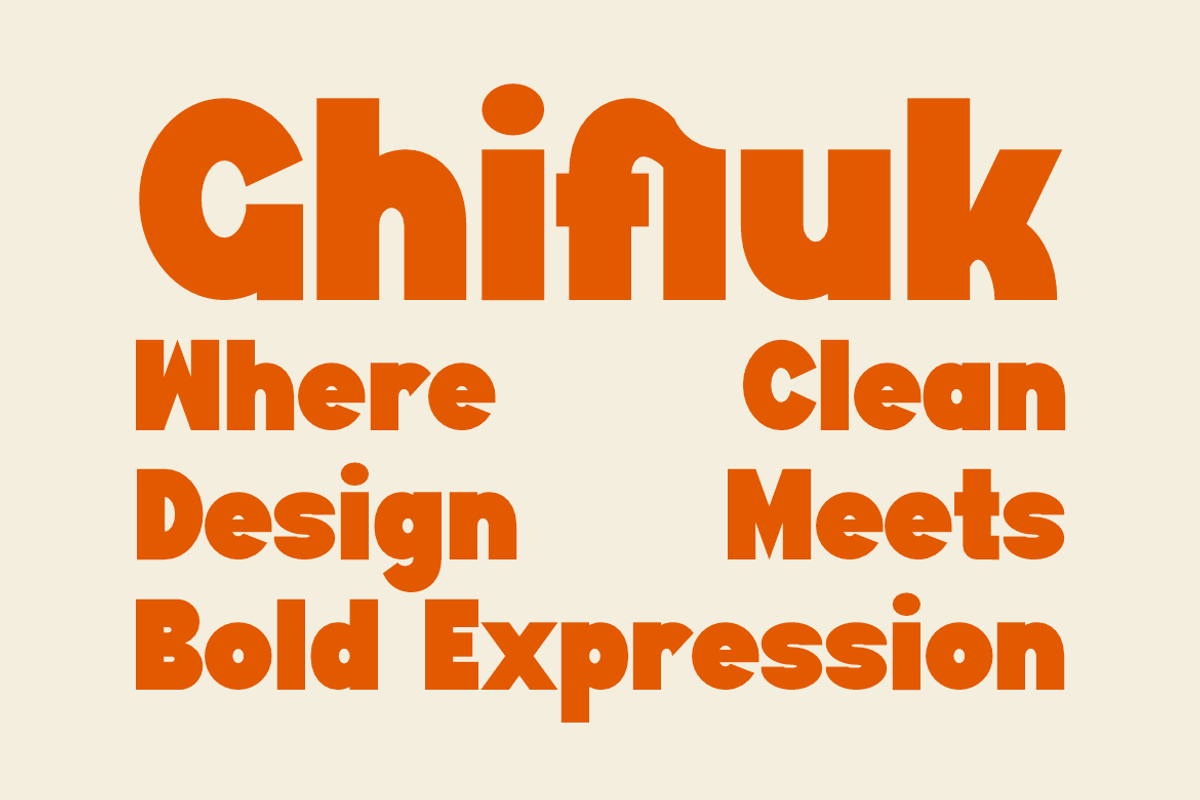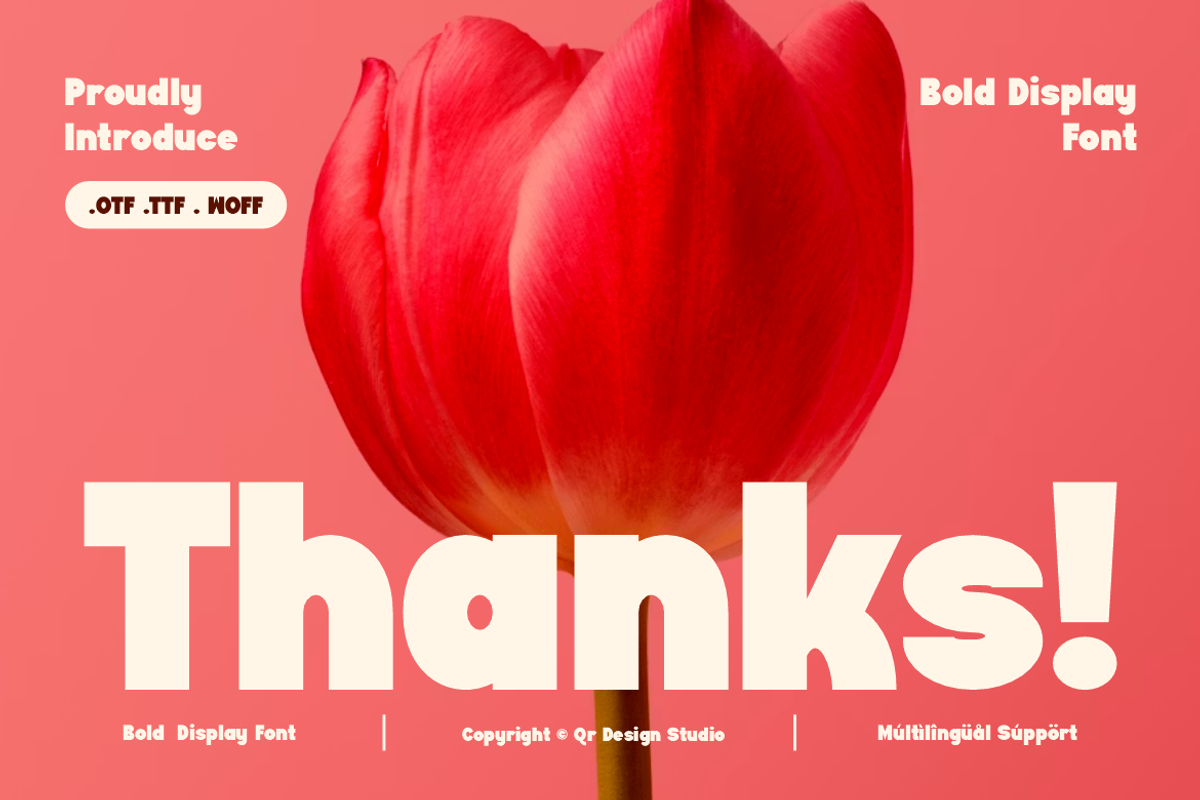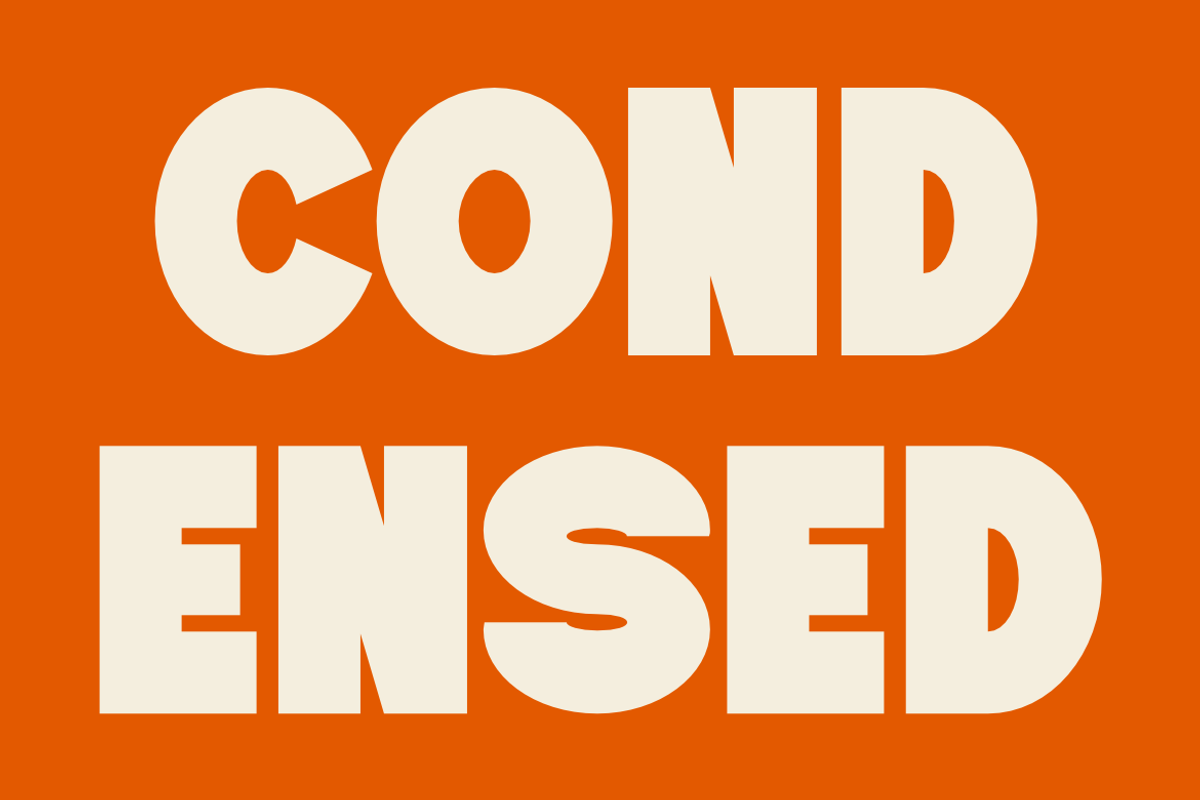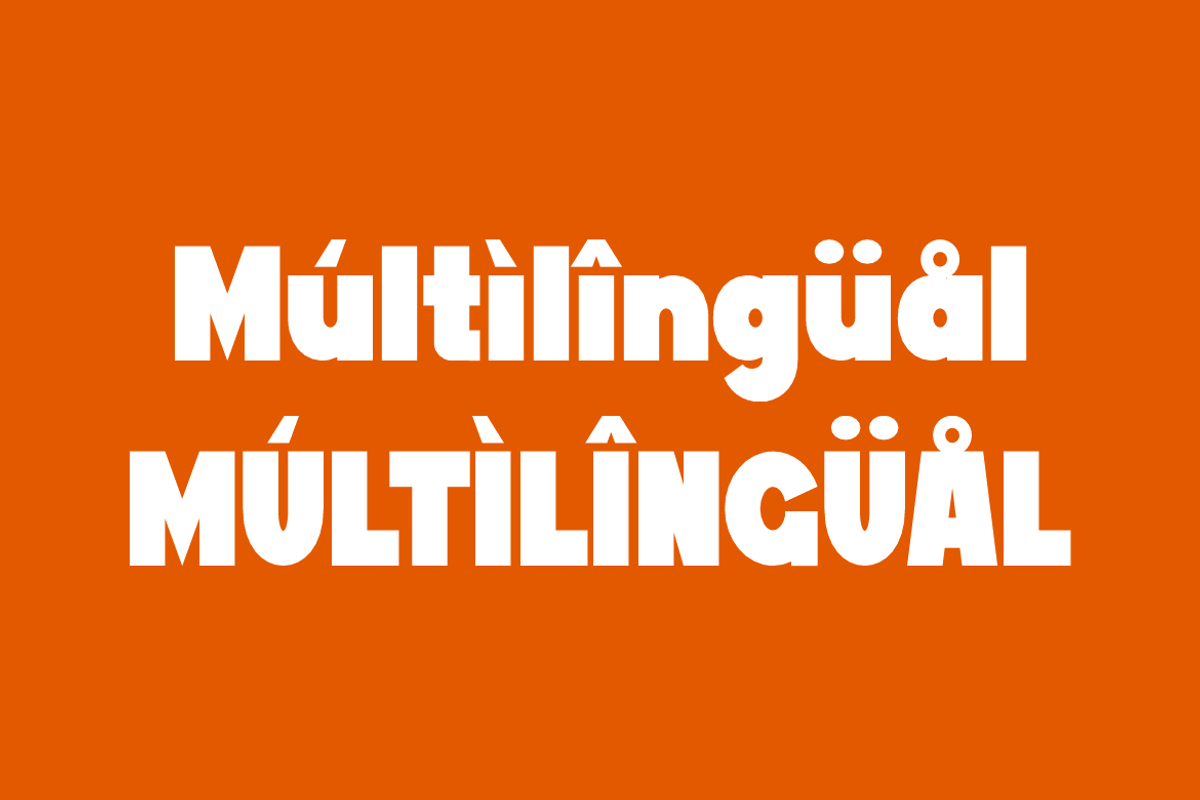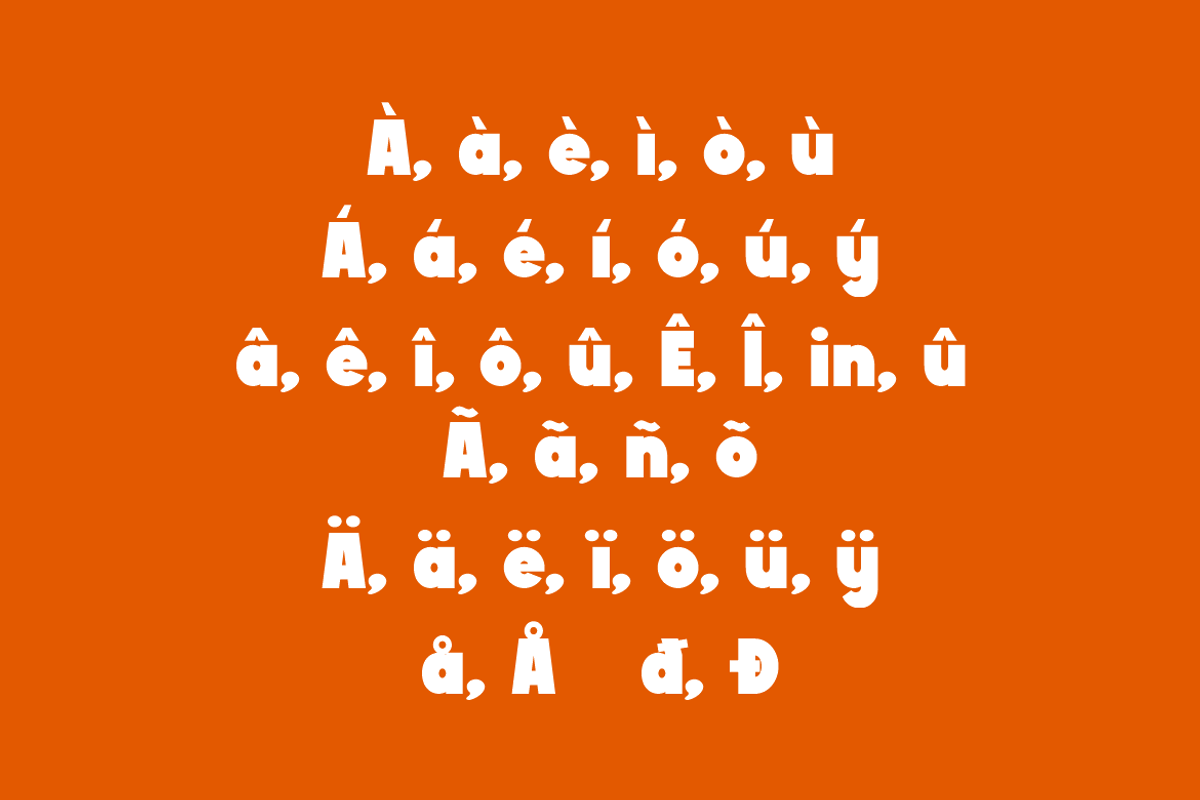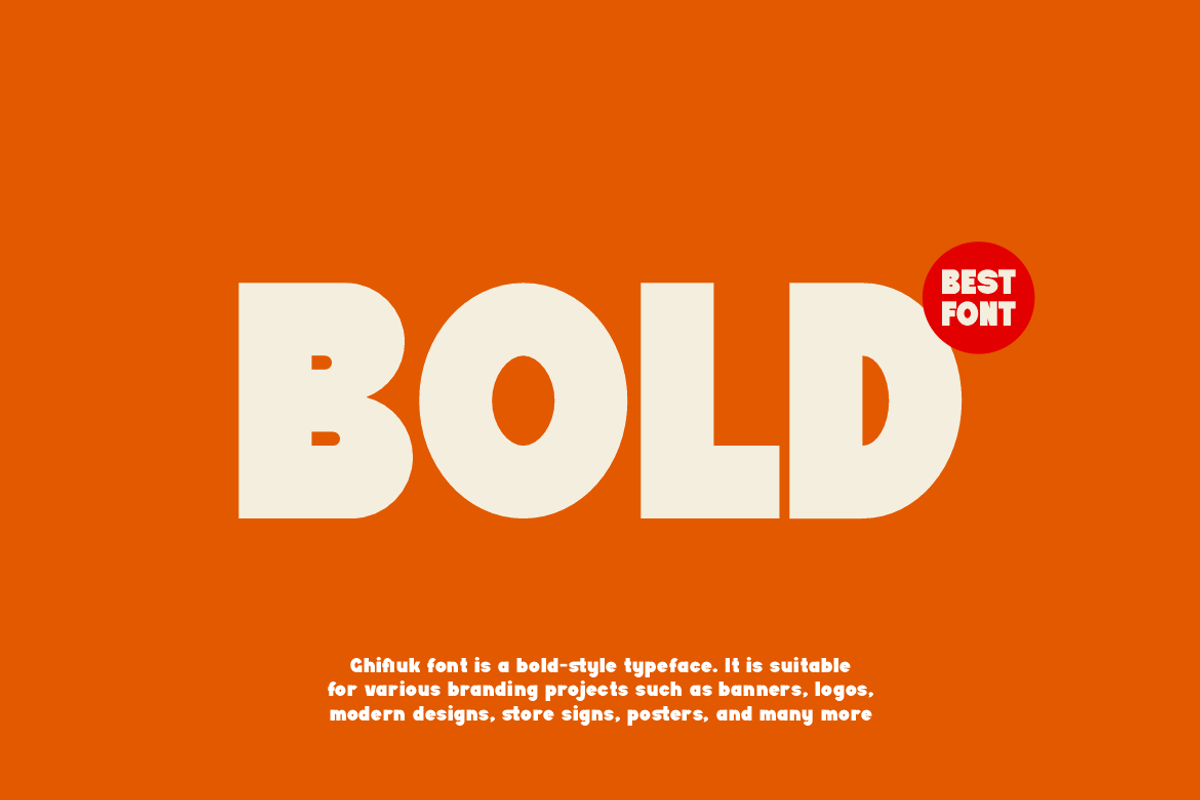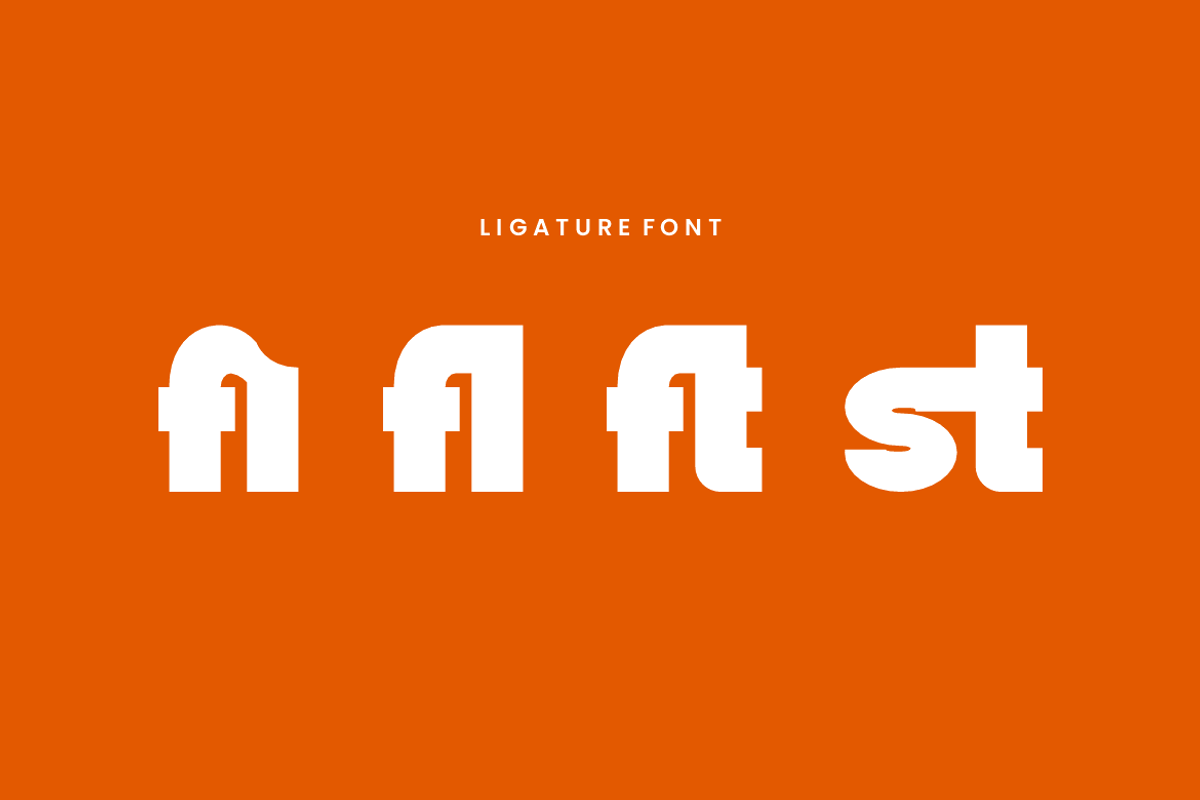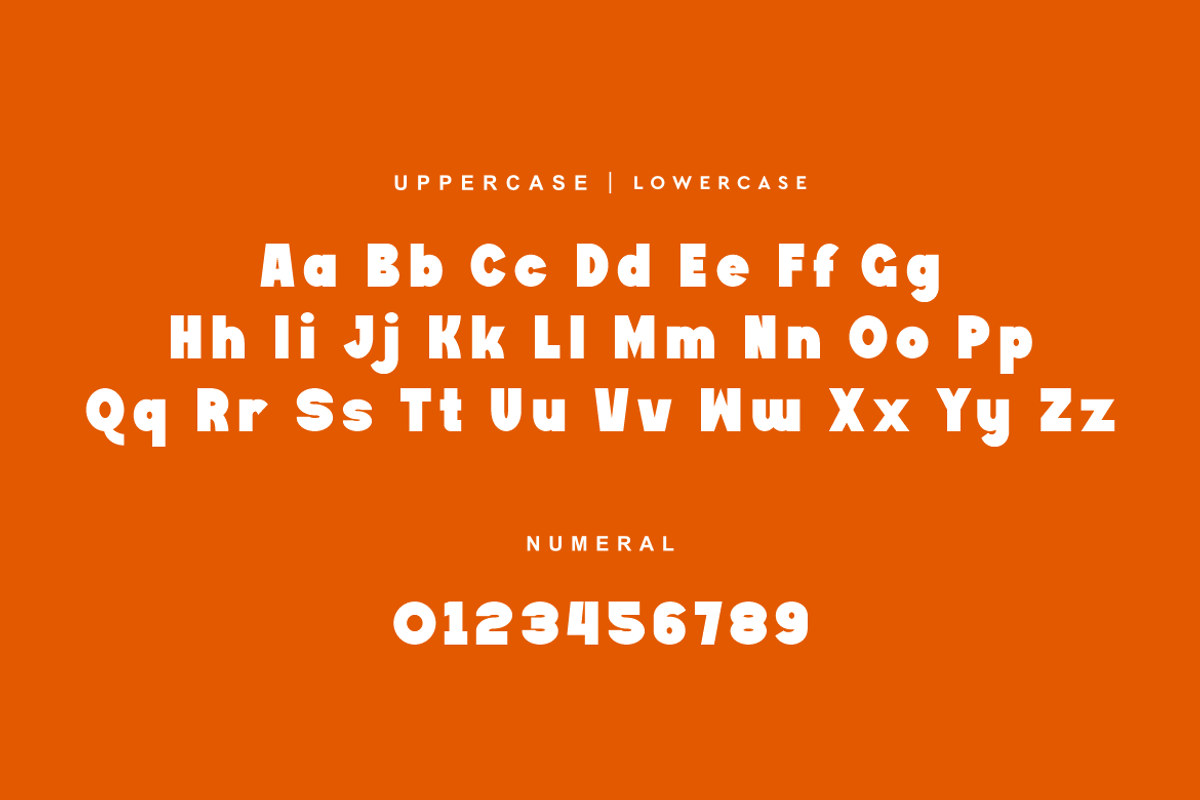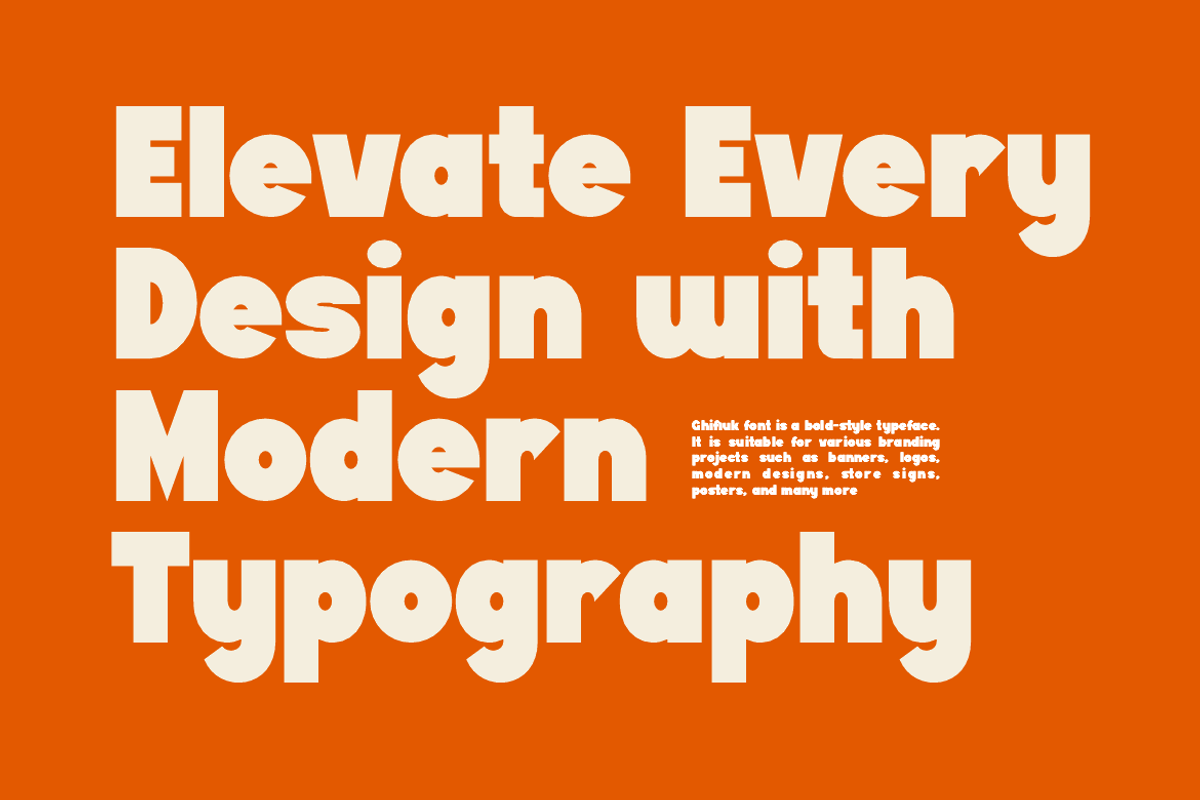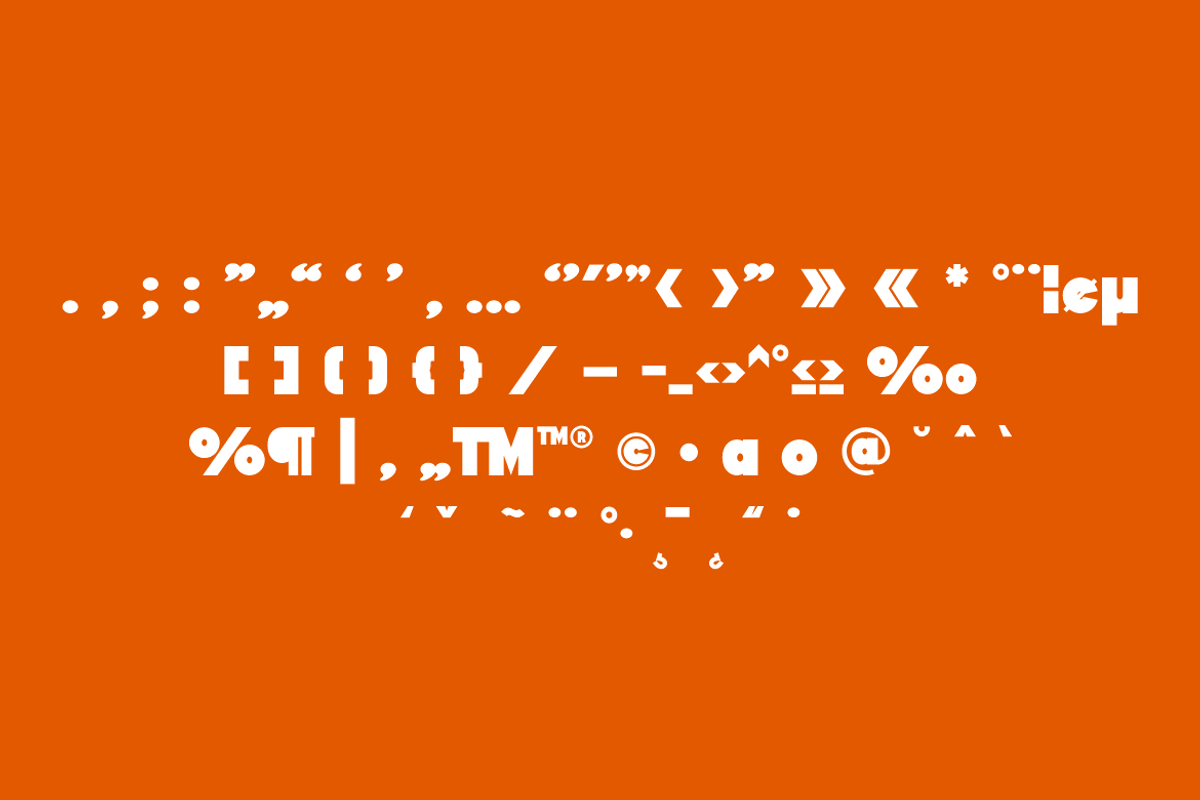
Ghifiuk - Bold Display Font
Ghifiuk Font is a bold and authentic display typeface. It’s perfect for various branding projects such as logos, modern designs, and more. This font stands out beautifully in a wide range of contexts.